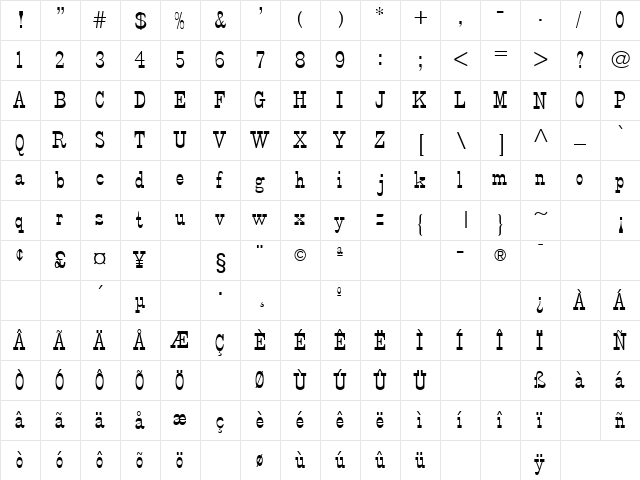
Duluth Regular
Design Context for Duluth Typeface
Duluth takes a measured approach to typography — its balanced proportions and neutral character make it a reliable workhorse for both digital and print work.